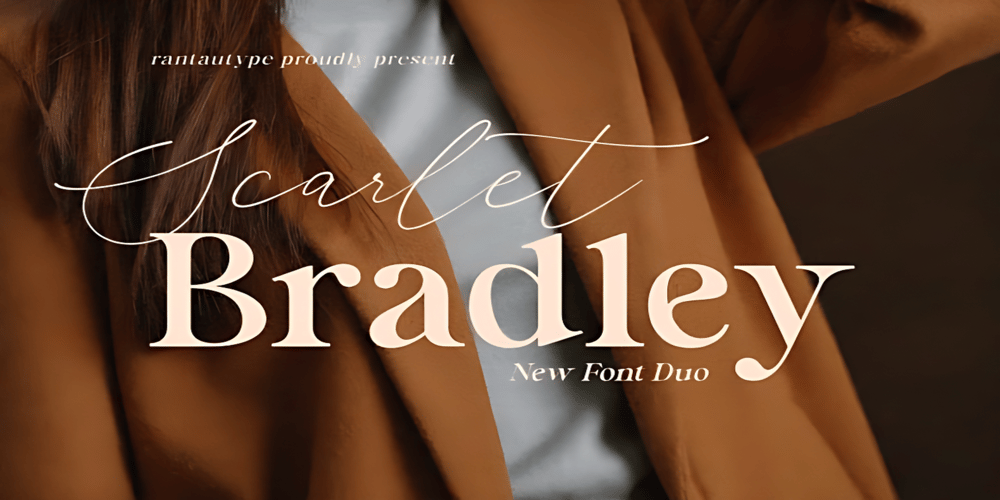
Scarlet Bradley
Scarlet Bradley font
Scarlet Bradley Font Family was designed by Frank Heine and published by Adita Fonts. Scarlet Bradley contains 1 styles and family package options. Introducing scarlet Bradley font duo, Scarlet Bradley is a beautiful serif and script font with more alternative character – serif font with a complementary italic version.Scarlet Bradley come with elegant script font lowercase ending swash make your work more beautiful.It is great for making logotype, branding, promotional ads, quotes design, packaging, merchandise, poster, merchandise, social media and much more. Let’s make your work to next level!!Features ( Regular, Italic and script )Compatiblity Windows Apple/Mac Linux Easily convert to webfont Cricut Silhouette